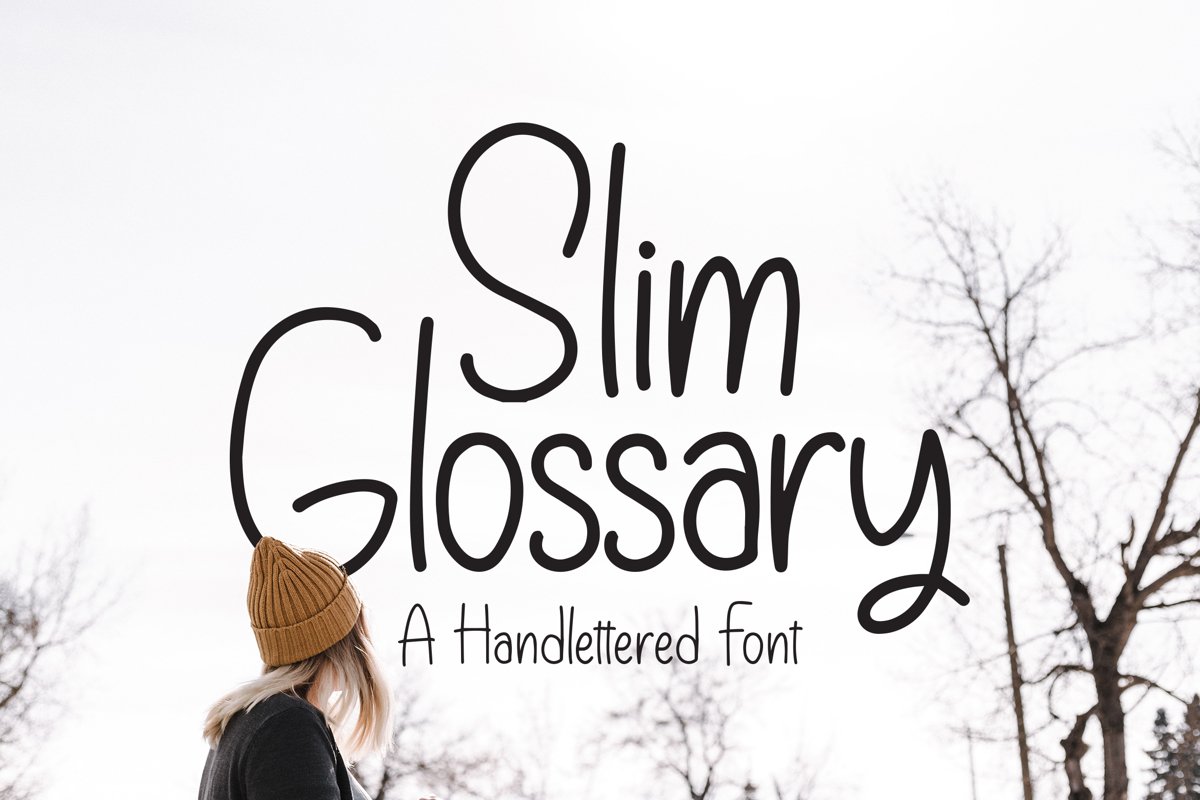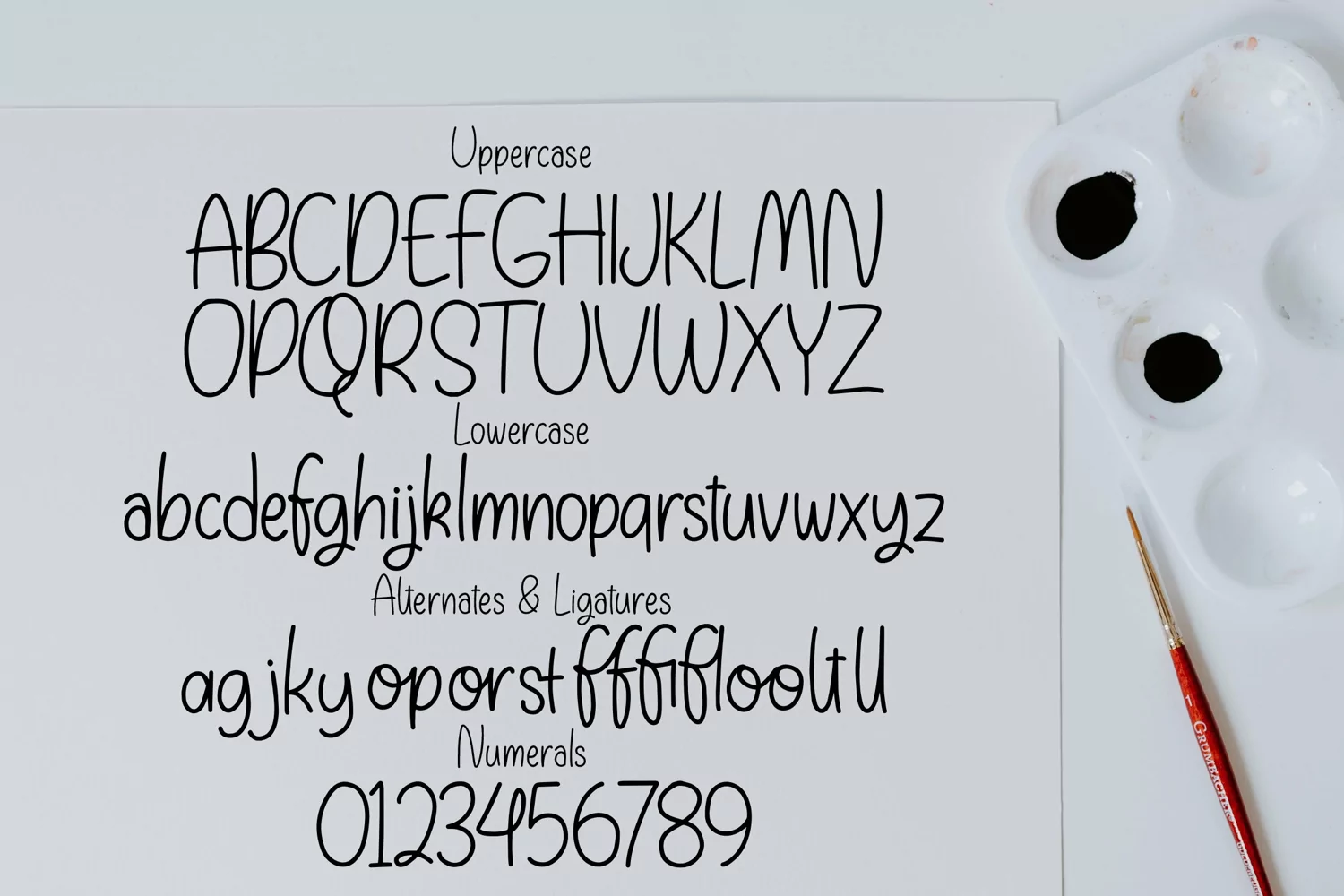
Slim Glossary - Handlettered Font
Slim Glossary - Handlettered Font that contain lowercase, uppercase, symbol, and also support multi language. There’s a lot ligatures in this font. This Font also comes with ligatures, alternates and many more. this font suitable for fashion, branding, catalog and other design what you want.